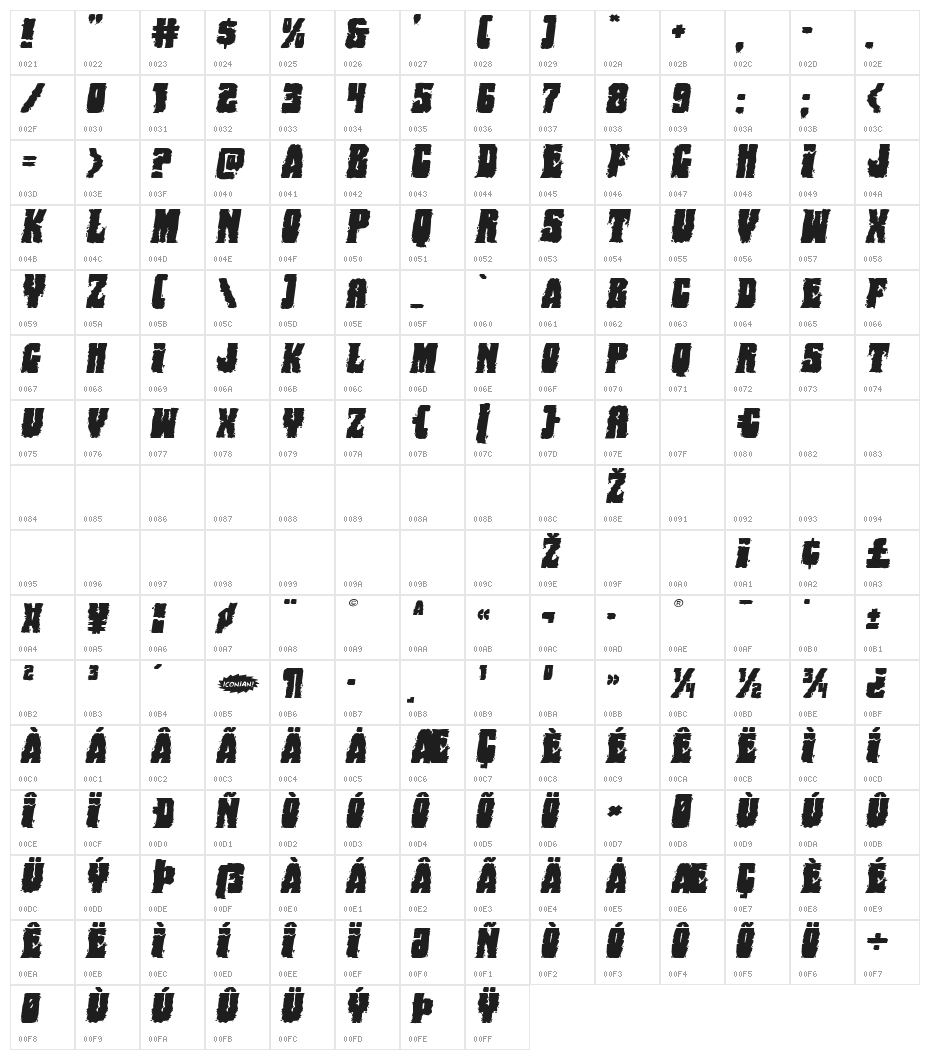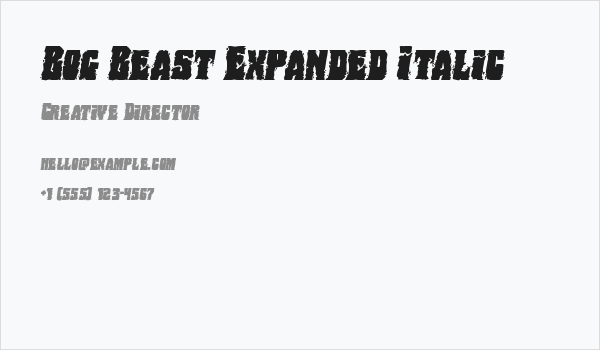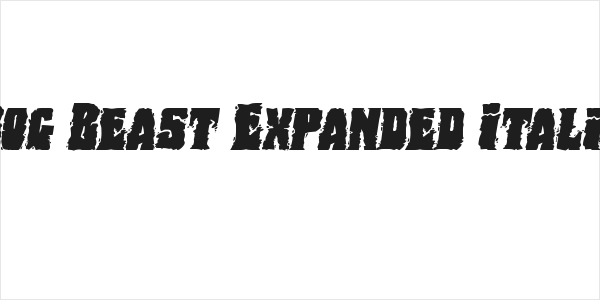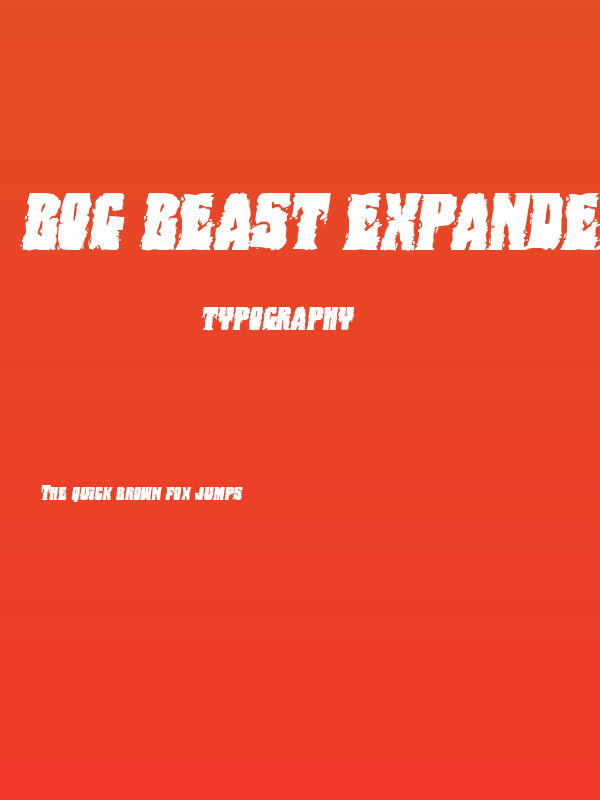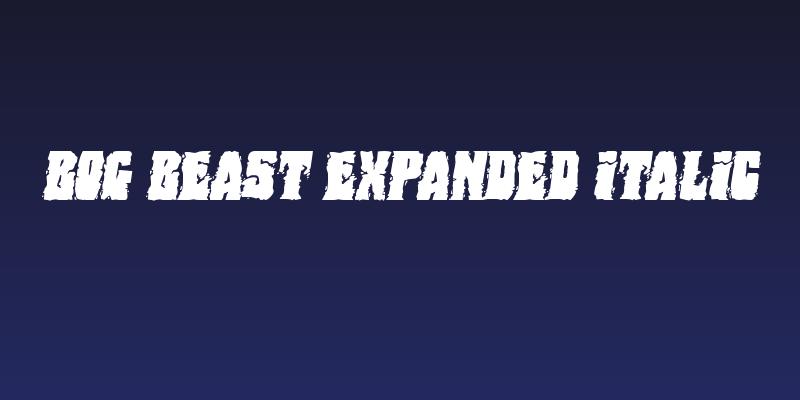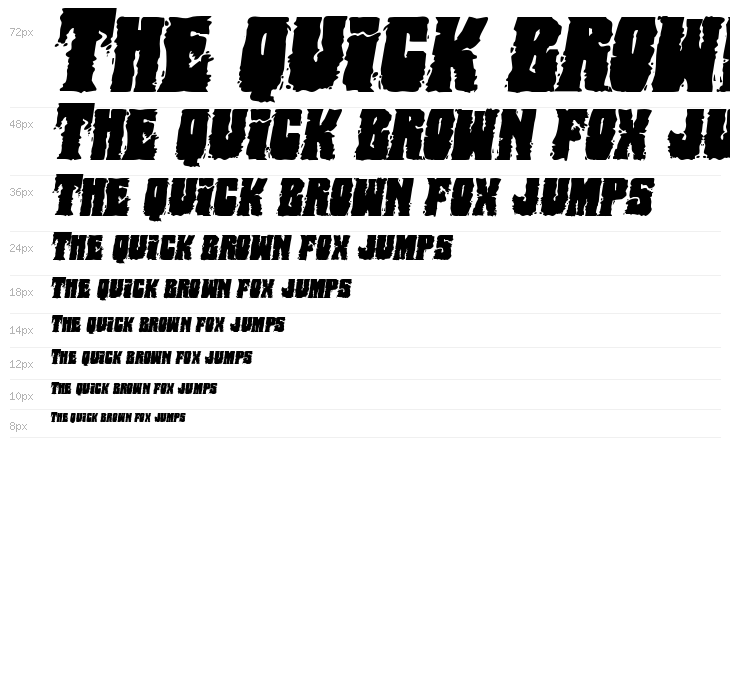
Bog Beast Expanded Italic Font
Bog Beast Expanded Italic Description
This font features a bold, rugged design with an expanded and italicized style. The characters have a distressed, textured appearance, reminiscent of rough, natural elements. The uppercase and lowercase letters maintain a consistent boldness, with jagged edges that give a sense of movement and energy. The numbers and special characters follow the same design principles, ensuring a cohesive look across all glyphs. This font's unique style makes it stand out, offering a visually striking option for projects that require a bold statement.
| Proposed Projects | Ideal for horror-themed posters, edgy branding, video game titles, and any project needing a bold, impactful look. |